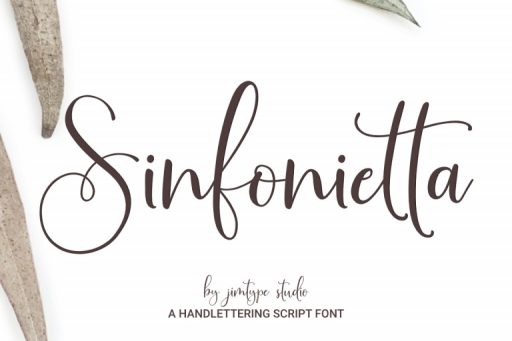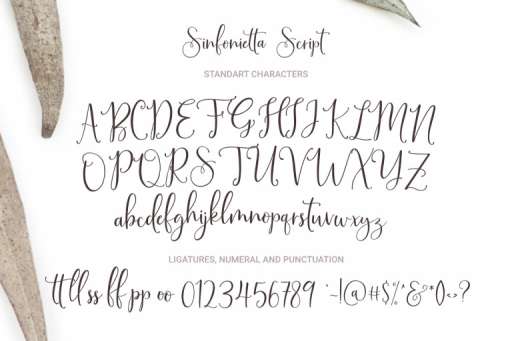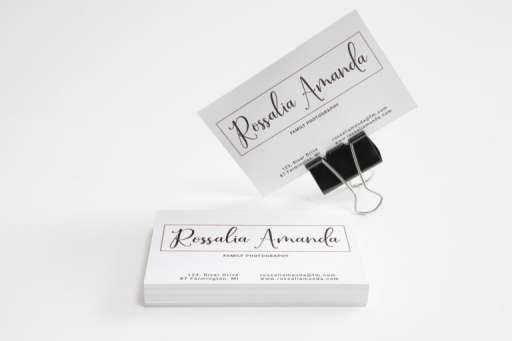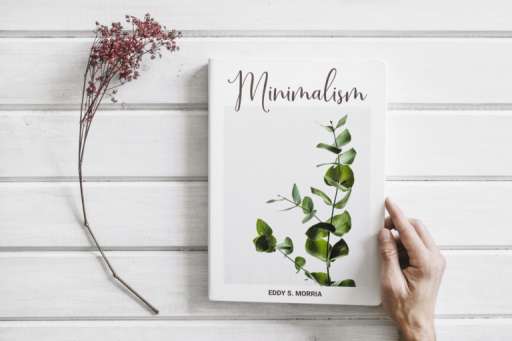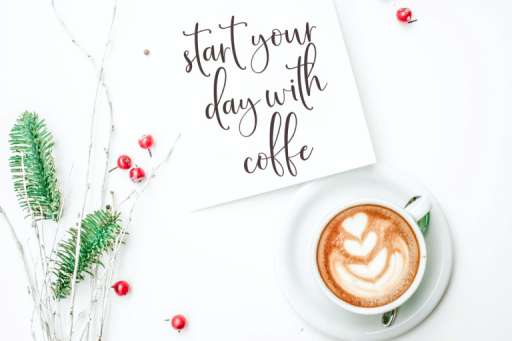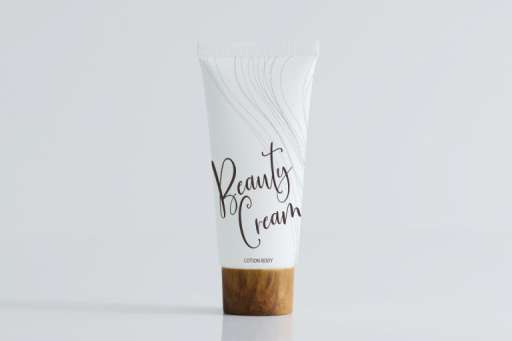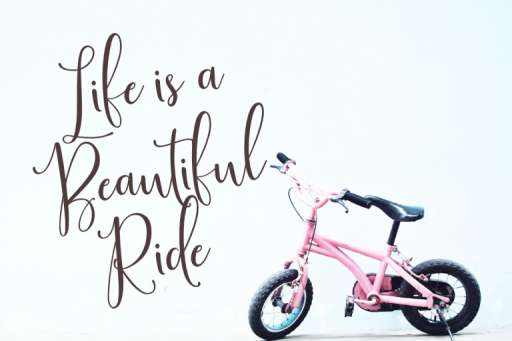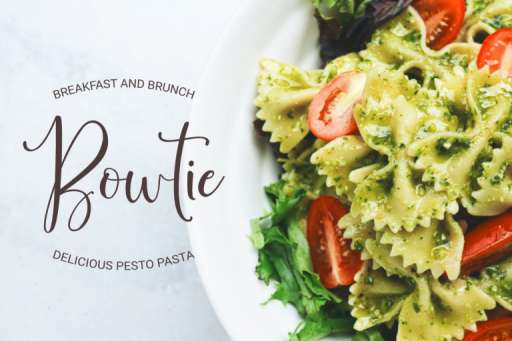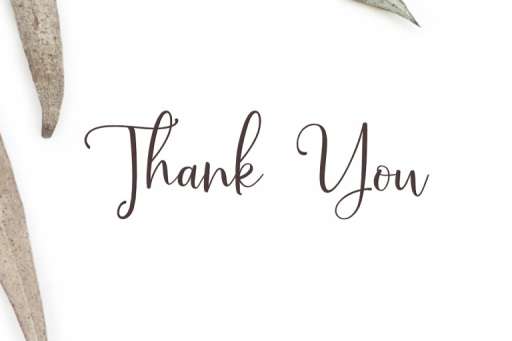
Sinfonietta Font - Script Business Font From Jimtype Studio
Sinfonietta Regular
Sinfonietta Font – Handlettering Script
Sinfonietta font is a sweet, simply, and fun hand lettering. This lovely little calligraphy font is packed with ligatures. Sinfonietta are perfect companions for designing greeting cards, quotes, typographic designs, wall art, branding, packaging, websites, photo & photography overlays, signs, window art, scrapbooking, tags and so much more.